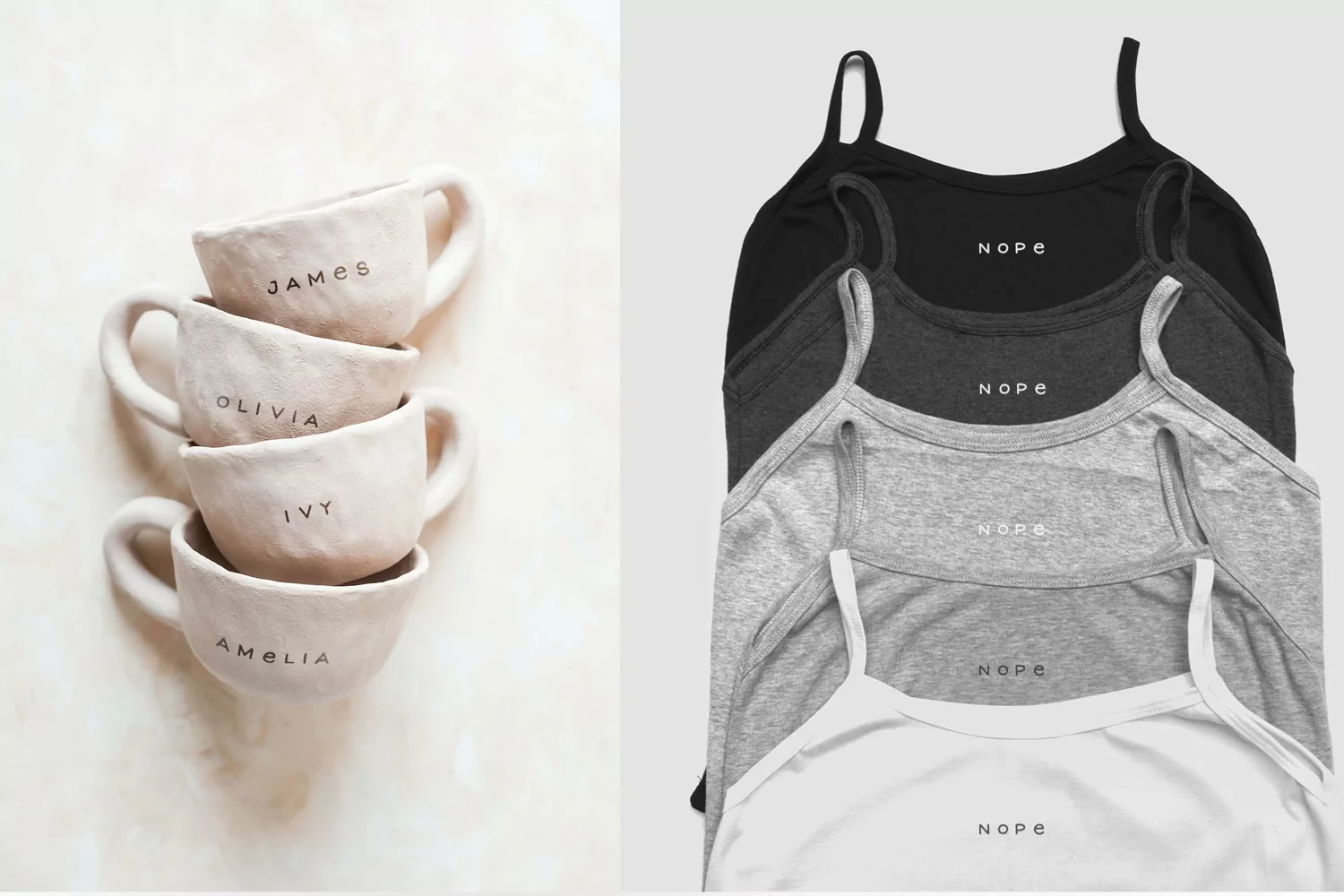
White Sans - Minimalist Modern Display Typeface Cricut Font
White Sans - this is a sans-serif font, hand-drawn and brought to a clean outline. He is not perfectly symmetrical, and therefore not at all arrogant, but balanced and serious.
Contains only capital letters, symbols and extended Latin characters. Multilingual support.